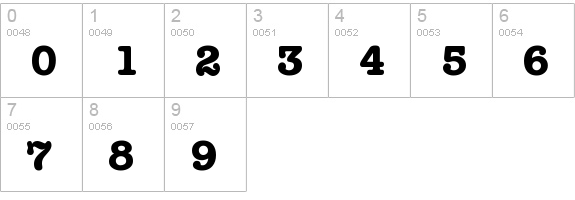
ModernTypewriter-Bold Font Details
ModernTypewriter-Bold is a strong, high-contrast variant in the ModernTypewriter typeface family \xE2\x80\x94 well suited to headlines, attention-grabbing titles, and strong calls-to-action.
ModernTypewriter-Bold is a sleek and sophisticated font that combines the classic elegance of a typewriter with a modern twist. Its bold and clean lines make it perfect for adding a touch of professionalism to any design project. Whether you are creating a sleek brochure, a stylish logo, or a trendy website, ModernTypewriter-Bold is sure to make a statement. Best of all, this versatile font is available for free download at FontsMarket.com. So why wait? Add a touch of modern flair to your designs with ModernTypewriter-Bold today!